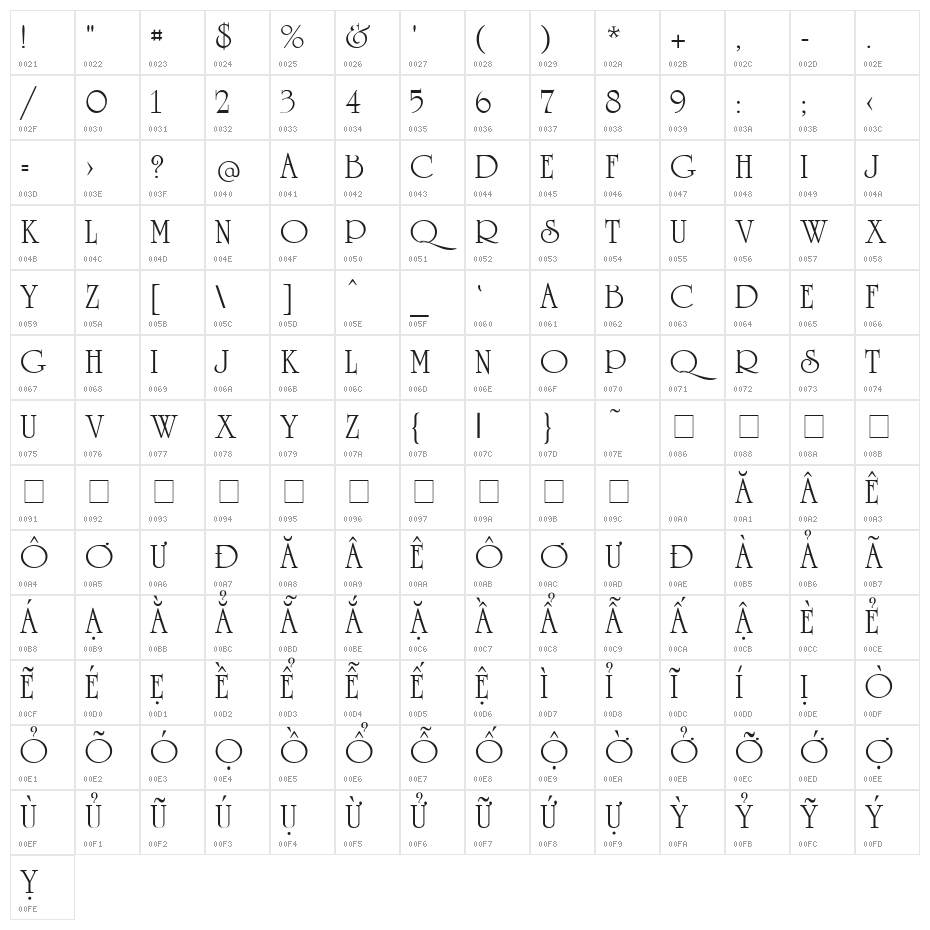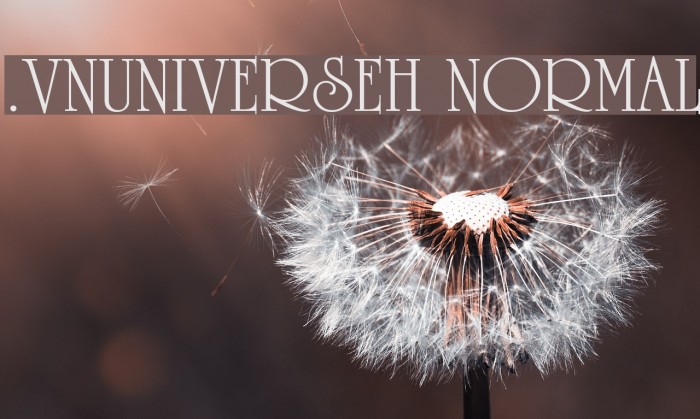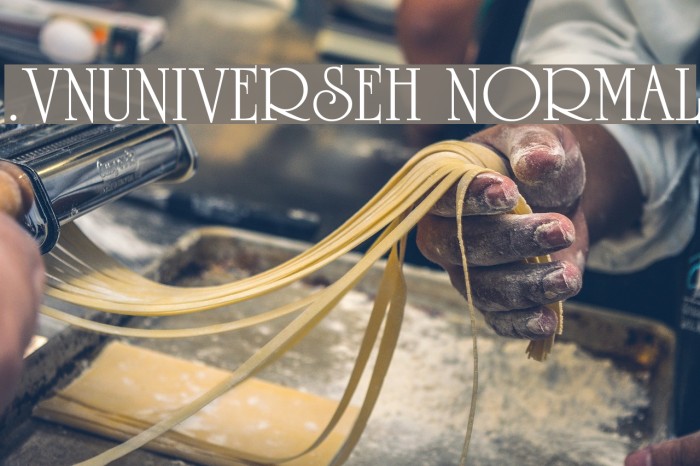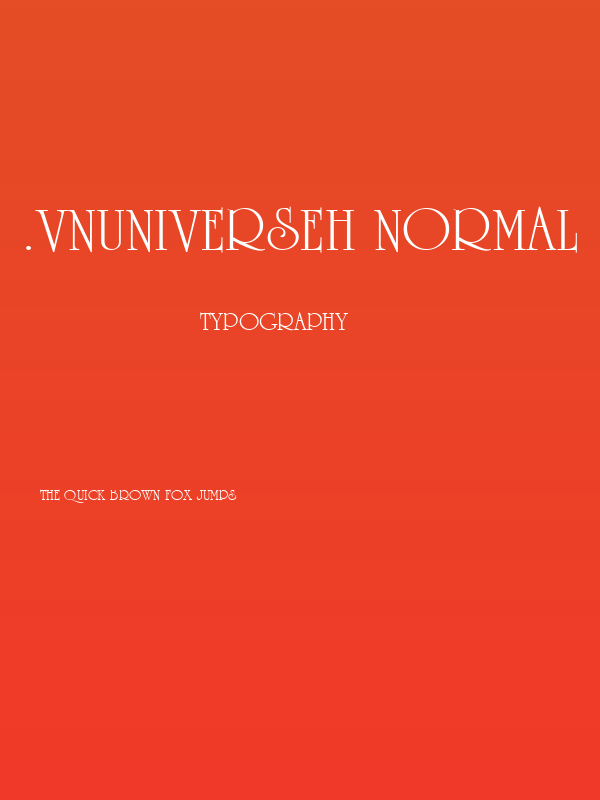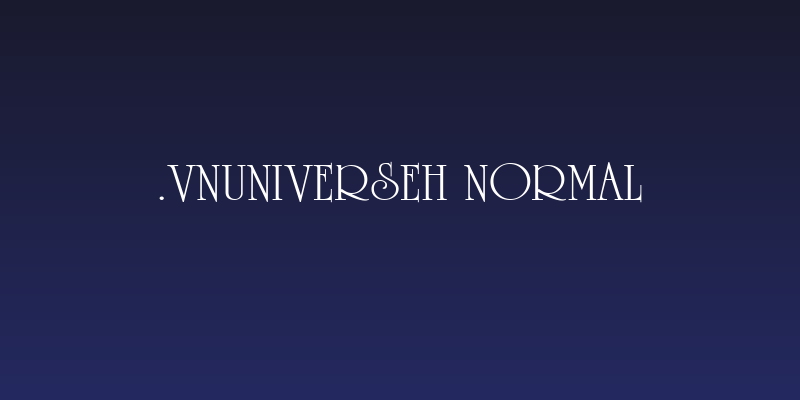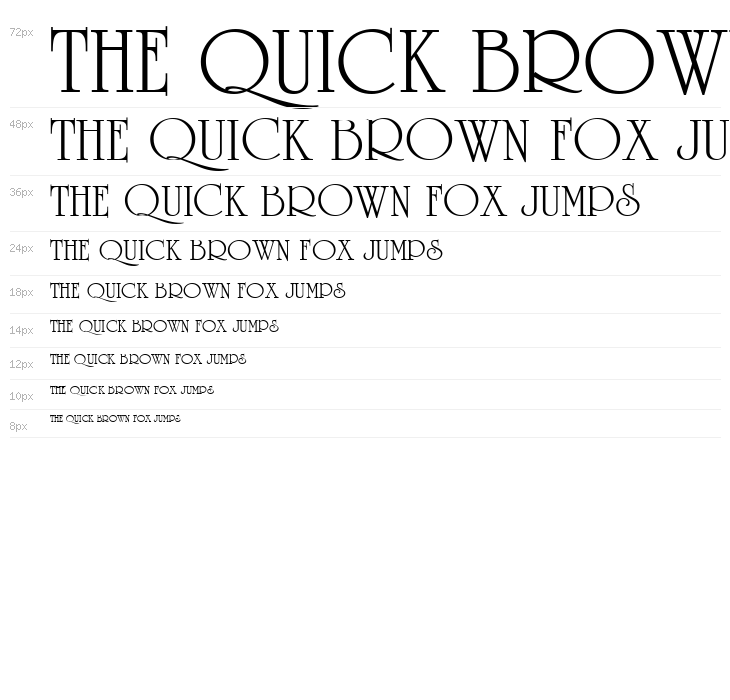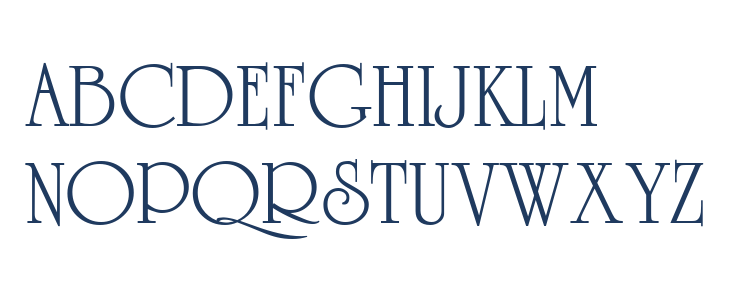
.VnUniverseH Normal Font
✎ Serif
| 分类 | Serif |
| 整体风格 | Classic |
| 使用场景 | Headlines, Body text, Logos |
| 推荐项目 | Ideal for use in editorial design, book covers, formal invitations, and branding projects that require a touch of sophistication. |